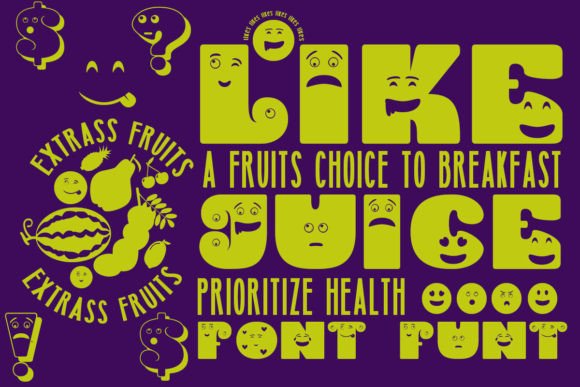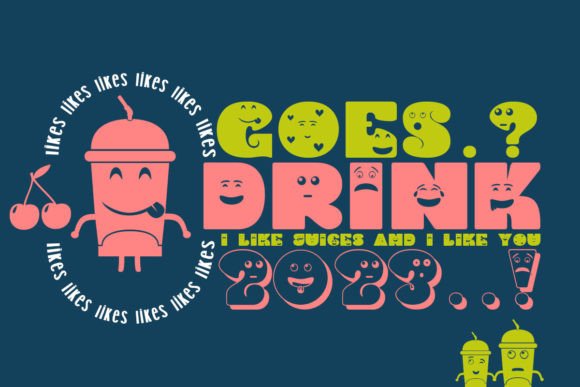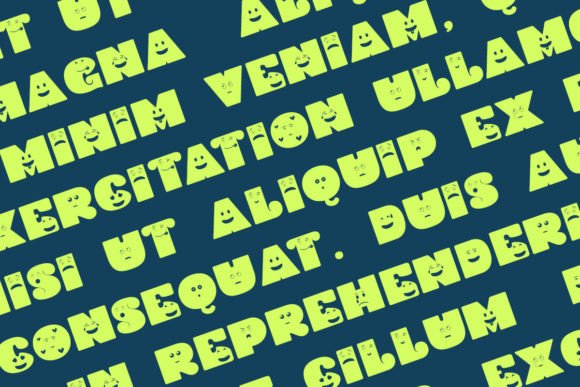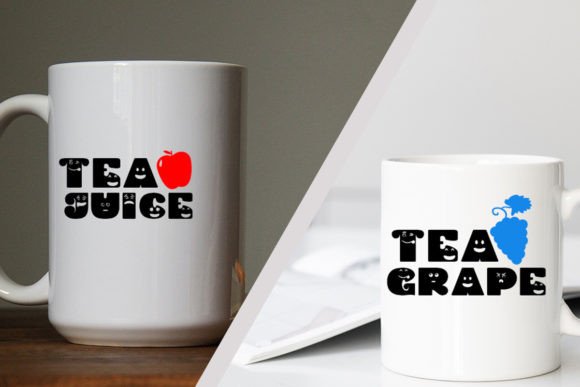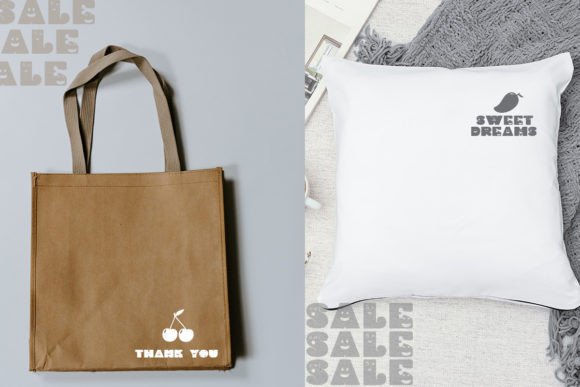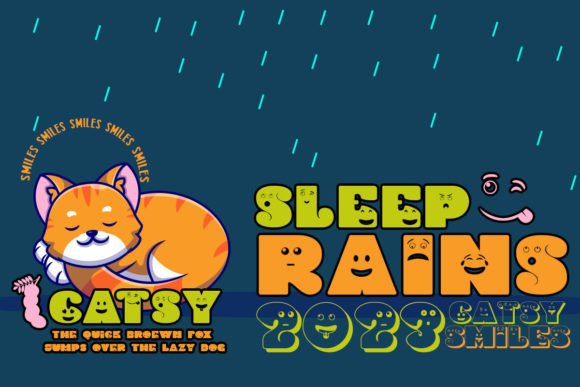
Introduction to Smiles Font
Who hasn’t been in a situation where a simple smile can brighten up a day? As designers, we’re constantly on the lookout for ways to add a dash of personality to our creative projects. Whether it’s a children’s magazine, a social media graphic, or a cute design for a product, a cheerful font can make all the difference.
That’s where the Smiles Font comes in – a unique display font that’s bursting with expression. Its bold and cute design makes it perfect for adding a playful touch to your next project. With its high-quality design and transparent background, this font is a valuable resource for designers looking to elevate their work.
Key Features of Smiles Font
- High-quality, professional design suitable for creative projects and various design resources.
- Smiles Font offers a wide range of glyphs and characters, ensuring versatility in creative applications.
Honest Review: Smiles Font
I recently stumbled upon the Smiles Font, and I must say it’s a great addition to any creative project. The high quality of this font is immediately noticeable, and it’s perfect for designers looking for a modern and playful touch.
Here are some things that work well with the Smiles Font:
- ✨ Unique and playful characters that add a touch of whimsy to any design
- ✨ Highly customizable, making it perfect for designers who want to add a personal touch
- ⚠️ Limited character set, which may not be suitable for large-scale projects
- ⚠️ Not ideal for formal or professional designs, as it may come across as too playful
Overall, I’m impressed with the Smiles Font and its potential to elevate any creative project. While it may have some limitations, it’s a great design resource for designers looking for a modern and playful touch.
Smiles Font
Tips for Getting the Most Out of Smiles Font
To get the most out of the Smiles Font, experiment with different font sizes, colors, and styles. You can also use the Smiles Font in combination with other design elements to create a unique look.
The Smiles Font is perfect for a variety of creative projects, including social media graphics, blog posts, and advertisements. It’s also great for creating a fun and playful atmosphere in your designs.
Alternatives to Smiles Font